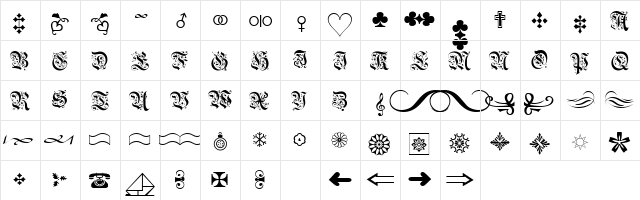
DS-Schmuck Normal Font Preview
DS-Schmuck Normal
Design Context for DS-Schmuck Typeface
DS-Schmuck is a composed and adaptable typeface that performs quietly and consistently across a wide range of design contexts.